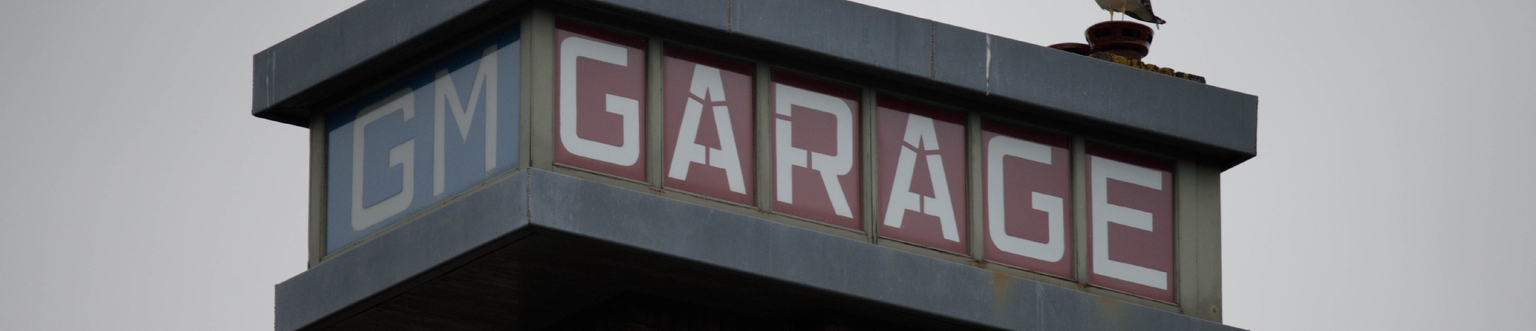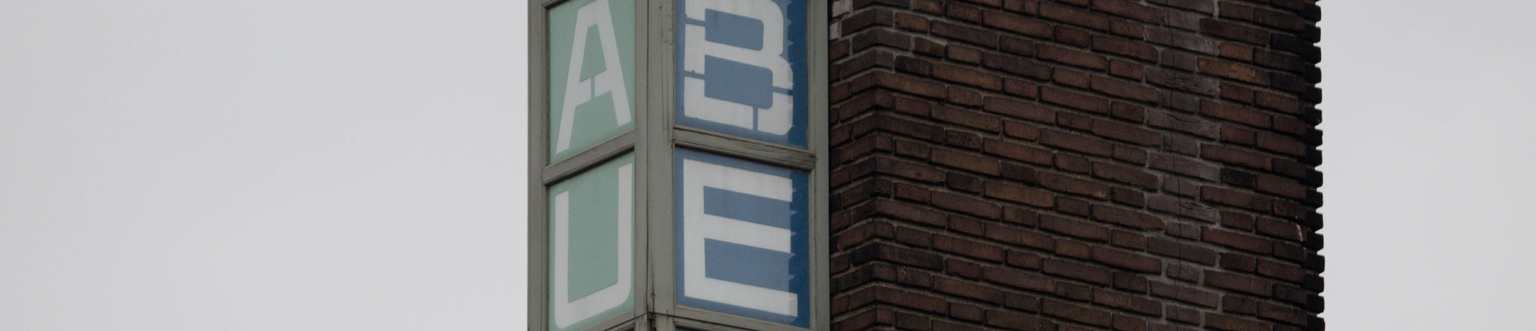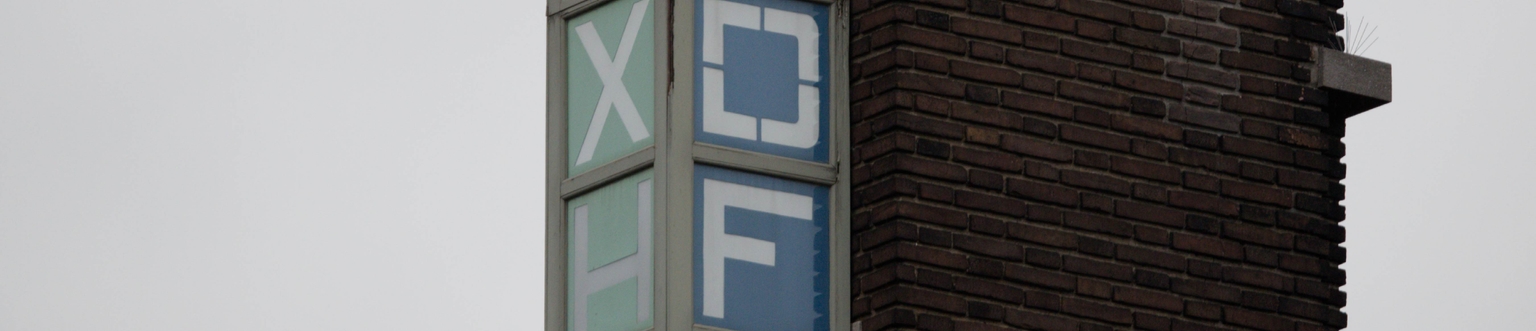
Stuurman
Stuurman is a display monospaced stencil typeface designed by Ramiro Espinoza and inspired by the vintage signage of the former GM Bedford–Vauxhall dealership located at Spoorstraat 6 in Gouda, the Netherlands. The iconic building, also known as Garage Zevenhoven, was designed in 1935 by Dutch architect Dirk Stuurman. Its original lettering combines monospaced construction, stencil-like interruptions, and a strong geometric structure typical of industrial and technical signage of the period.
Espinoza studied the proportions and construction logic of the original sign and translated these features into a contemporary digital typeface. Particular attention was given to modular rhythm and equal character widths, resulting in a monospaced system with a precise and mechanical appearance. Each glyph was carefully designed to function equally well in both horizontal and vertical compositions, extending the typeface’s versatility across different graphic applications.
With its technical character and architectural presence, Stuurman is well suited for museum posters and brochures, signage, editorial design, packaging, websites, music festival graphics, and visual identities that benefit from a clear industrial typographic voice. Rooted in Dutch commercial lettering of the 1930s, the typeface connects historical signage with contemporary design practice.